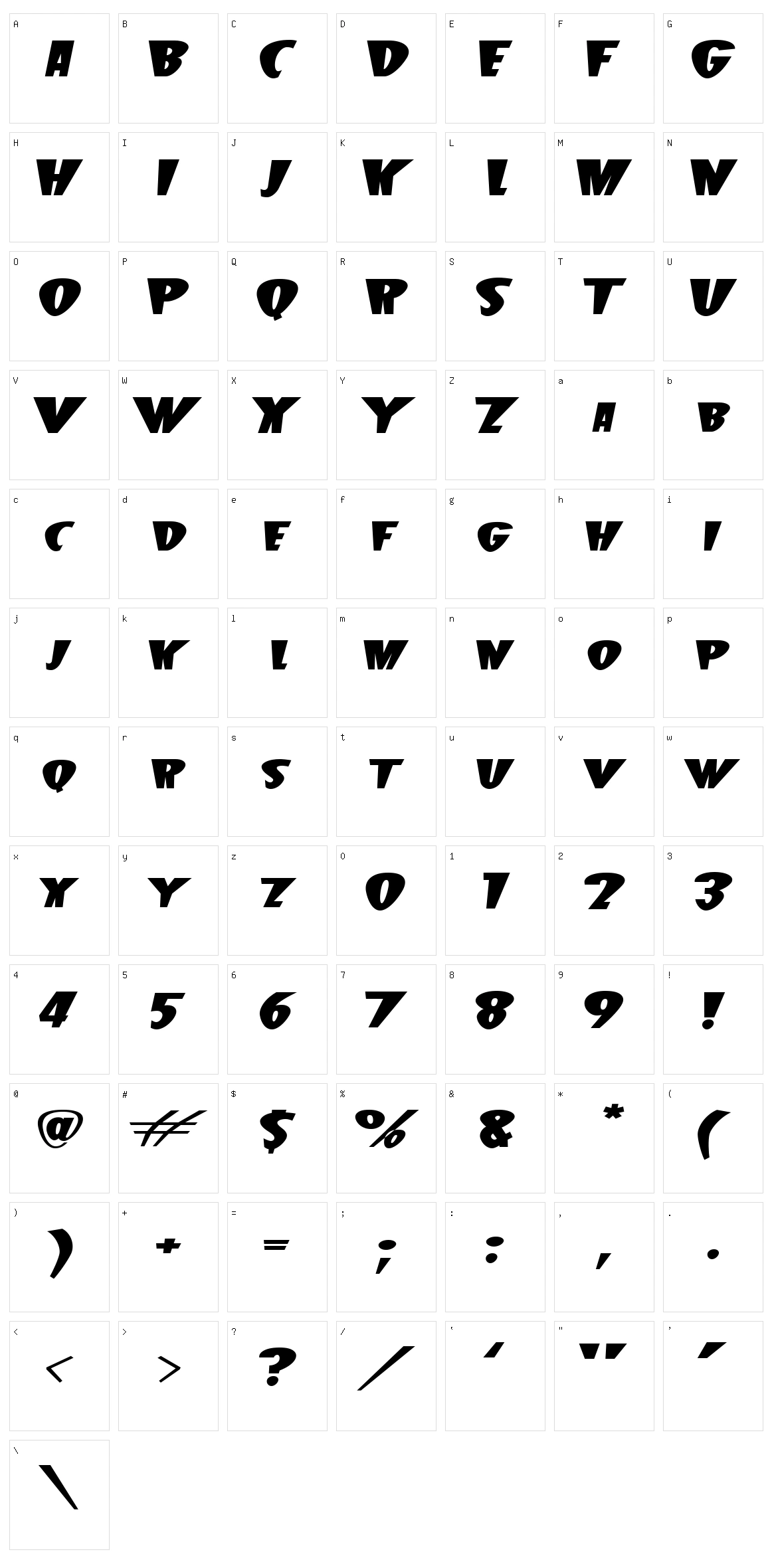
Thank you for downloading the second font from LAWN DART FONTS. "BeetleJ" is named after the Tim Burton movie Beetlejuice which I got the inspiration. It is a fun font. This font was created using FontLab and its "perspective" feature. I admit that this did not take me long, but the font is fun for big posters & flyers.
It is ALL CAPS.